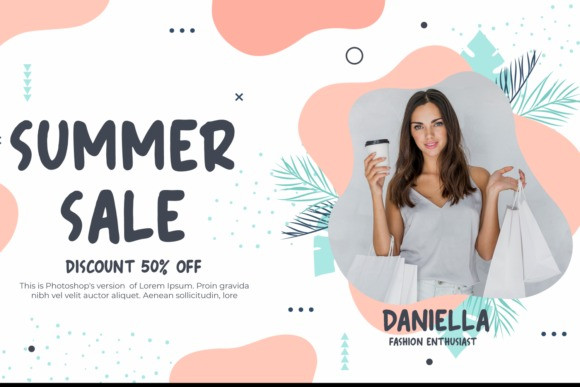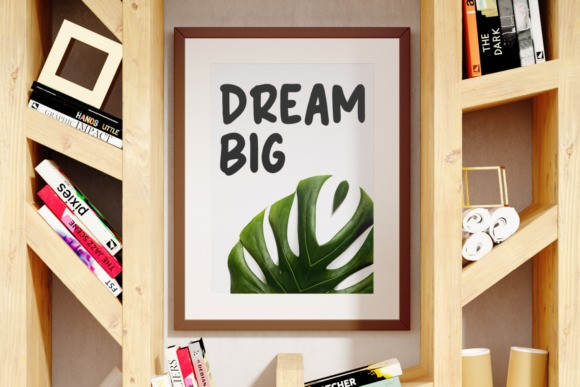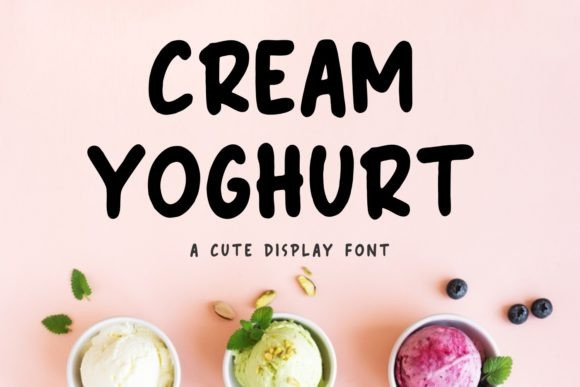
Cream Yoghurt Font
Cream Yoghurt Font is a fun and paint brushed display font, that can easily stand out. Simple but with a strong visual effect, this font will instantly make your creation more appealing than any others.